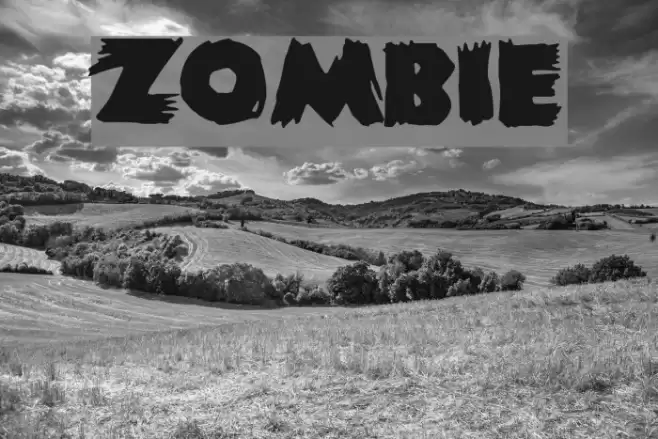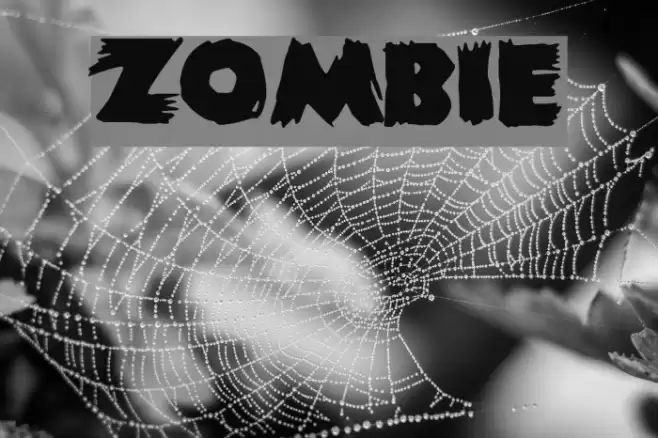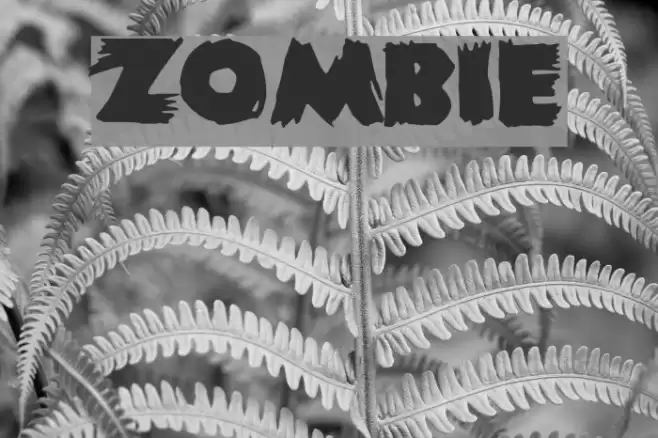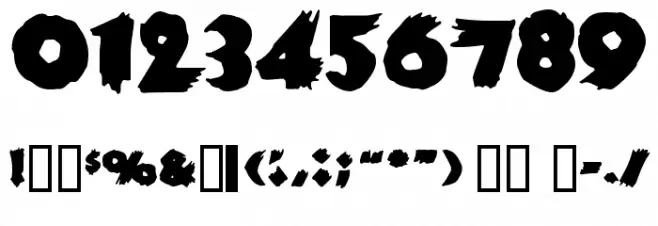
Zombie Font
Zombie Description
This font features a bold and jagged design, reminiscent of horror themes and spooky aesthetics. The characters are irregular and rough-edged, giving an impression of being torn or scratched. This style is highly decorative and captures attention with its dramatic and chaotic appearance. The uppercase and lowercase letters maintain a consistent theme, with numbers and special characters following suit. The font's unique style makes it suitable for thematic projects that require a touch of the eerie or macabre.
A bold, jagged font with a horror-themed, decorative style from 50s fonts.